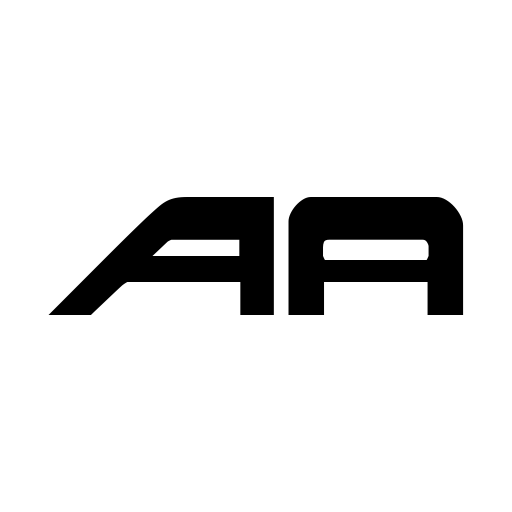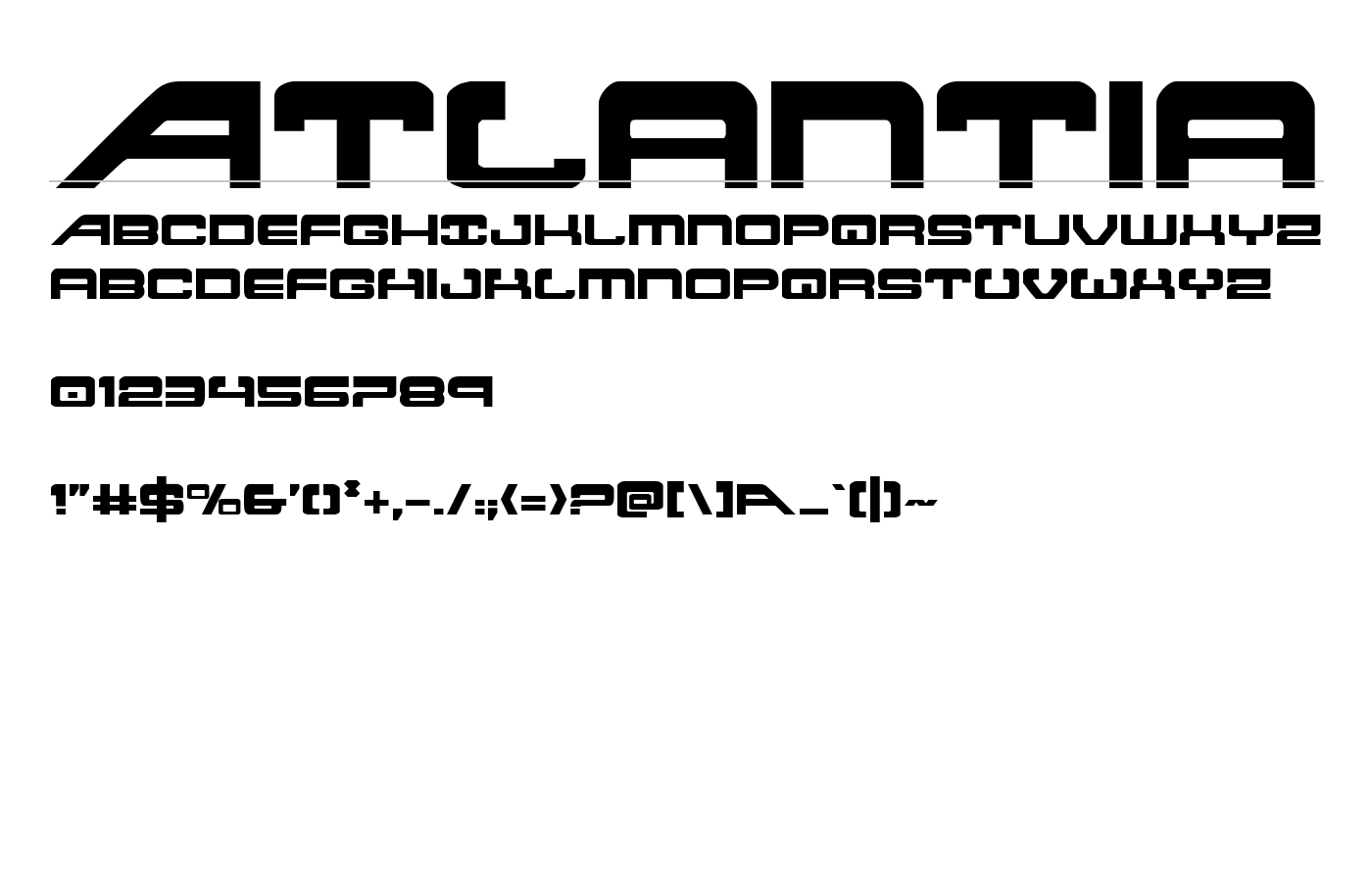
Atlantia is a bold, futuristic sans-serif font with a strong geometric influence and clean lines that convey modernity and technological sophistication. Its wide letterforms and unique angular details give it a distinctive, edgy style that works well for branding, headlines, and projects seeking a dynamic, cutting-edge look. This font is ideal for use in tech, automotive, or sci-fi themed designs where a bold and innovative appearance is desired.
Atlantia Font
About Atlantia Font